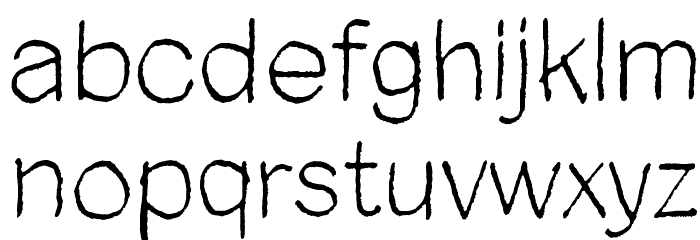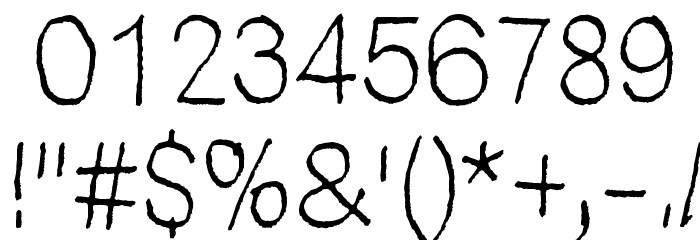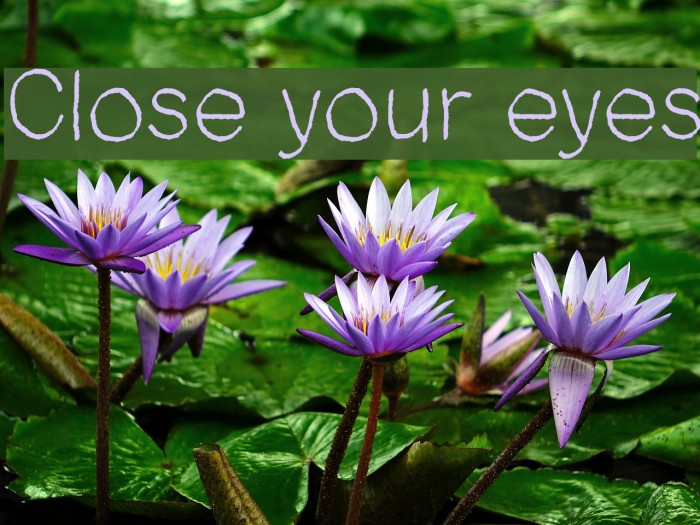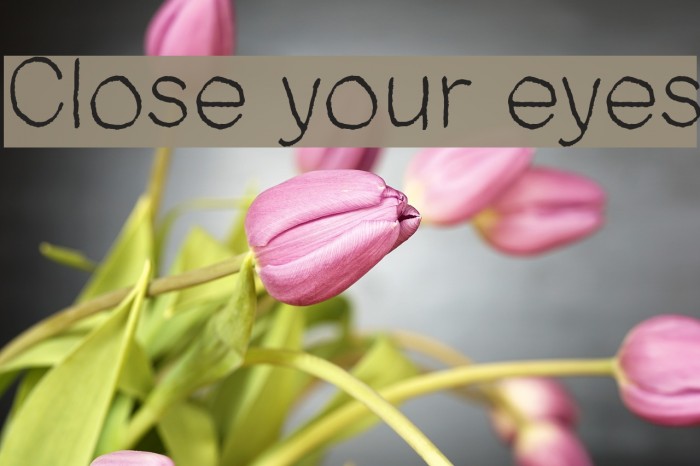
Close your eyes Font
This font features a hand-drawn, organic style with a casual and approachable appearance. The letters have a slightly uneven stroke, giving them a natural, handwritten feel. The uppercase and lowercase characters maintain a consistent style, with rounded edges and a playful touch. The numbers and special characters follow the same aesthetic, ensuring a cohesive look across all text elements. This font's charm lies in its imperfect lines and friendly demeanor, making it suitable for projects that require a personal touch.
A hand-drawn, casual font with a friendly, organic style.
- Proposed Projects: Ideal for greeting cards, personal blogs, children's books, and creative branding projects.
- Overall Style: Casual, Organic, Playful
- Use Case: Logos, Informal Text, Creative Projects